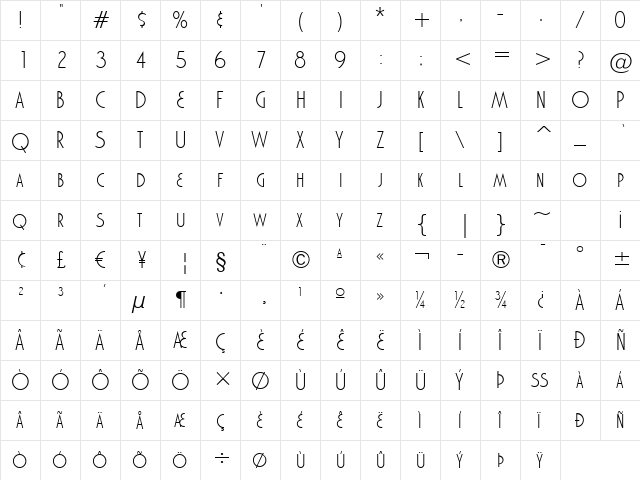
Marquisette BTN Light Regular
Design Context for Marquisette BTN Light Typeface
Marquisette BTN Light offers clean, dependable letterforms without strong stylistic allegiance, making it a practical choice for designers who need flexibility. The delicate stroke weight brings airiness and refinement to layouts.